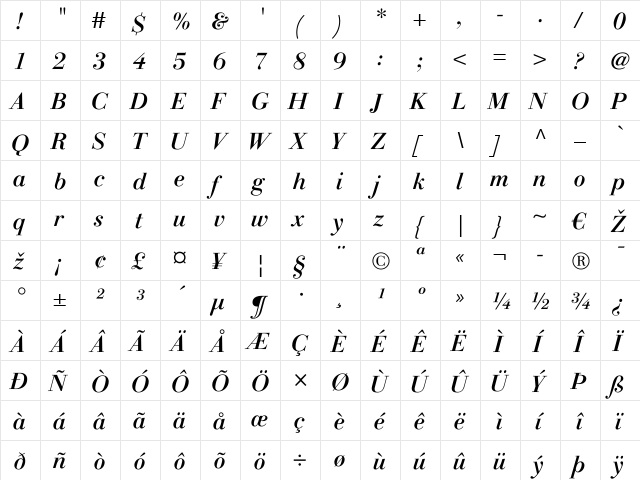
LTGianotten Medium Italic Font Preview
LTGianotten Medium Italic
LTGianotten Medium Italic Font Details
| Designer | Antonio Pace |
Design Context for LTGianotten Medium Typeface
LTGianotten Medium takes a measured approach to typography — its balanced proportions and neutral character make it a reliable workhorse for both digital and print work. The dynamic lean of this cut emphasises speed and emphasis in any layout.